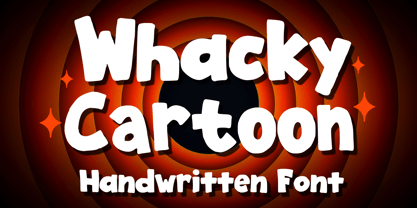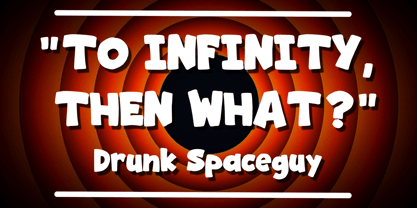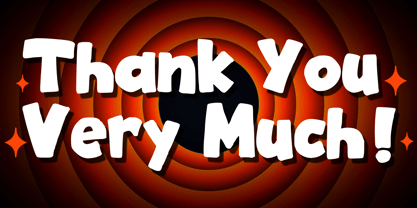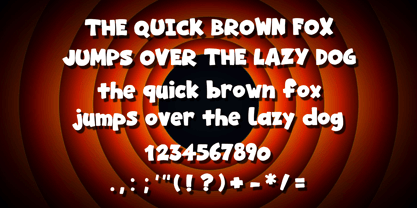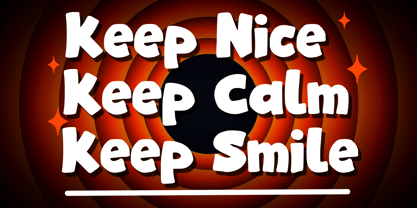
Whacky Cartoon
by Mvmet
The Whacky Cartoon Font Family was designed by Gabriel Valentinus and published by Mvmet. Whacky Cartoon contains 1 styles. More about this family
Echoing the lighthearted charm of vintage cartoons, Whacky Cartoon is a bold and dynamic font crafted with a playful spirit. This versatile typeface enhances a wide range of creative projects with its unique appeal, elevating them to new heights of artistic expression. Unleash your imagination with limitless design possibilities, from eye-catching logo designs and fun stickers to stylish t-shirt prints and delightful book or magazine covers. Whacky Cartoon also brings life to comic strips and cartoon illustrations, transforming everyday typing into a fun-filled experience. Infuse an extra dash of cool and whimsy into your designs with this charming font!
Designers: Gabriel Valentinus
Foundry: Mvmet
Whacky Cartoon